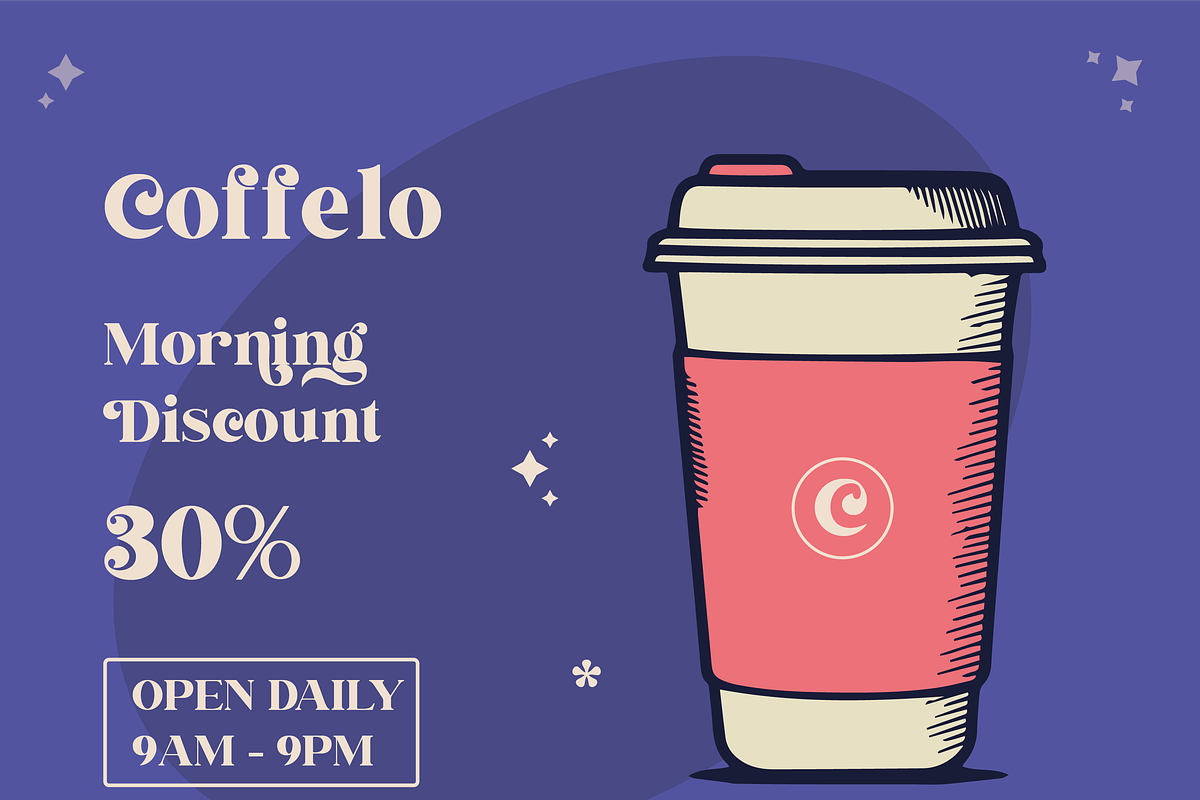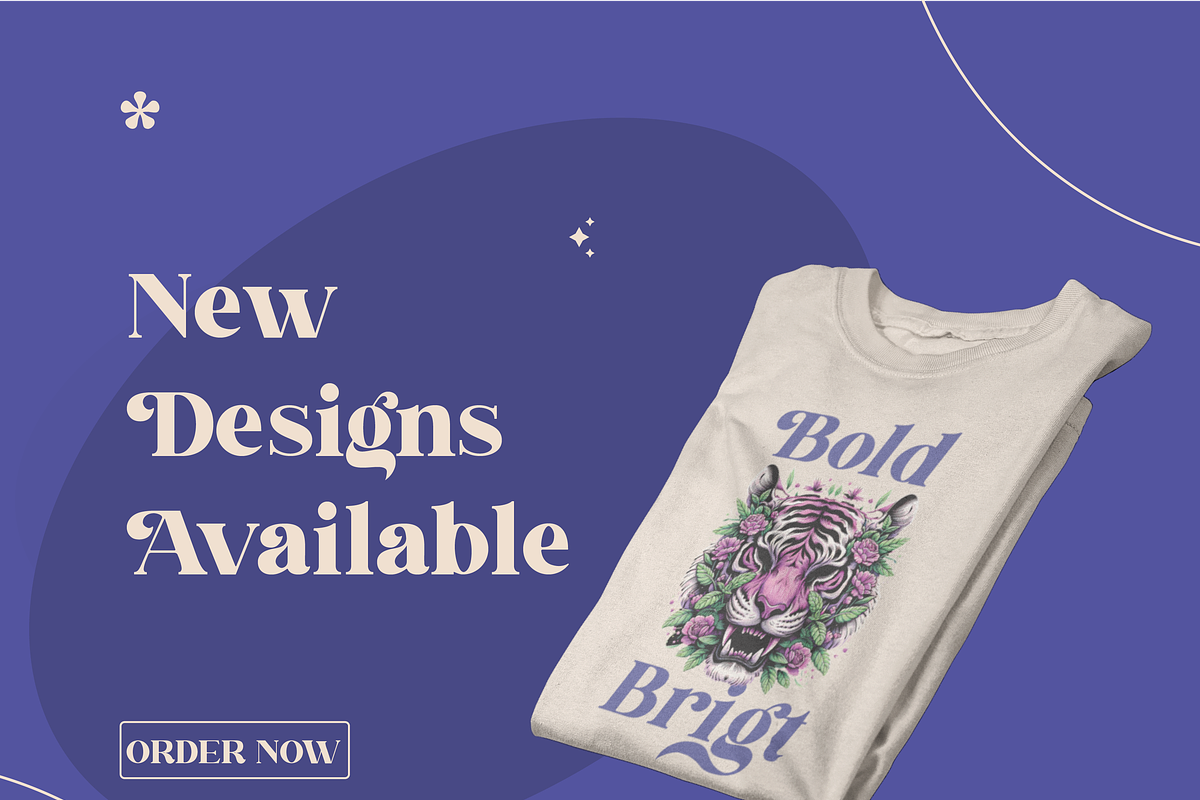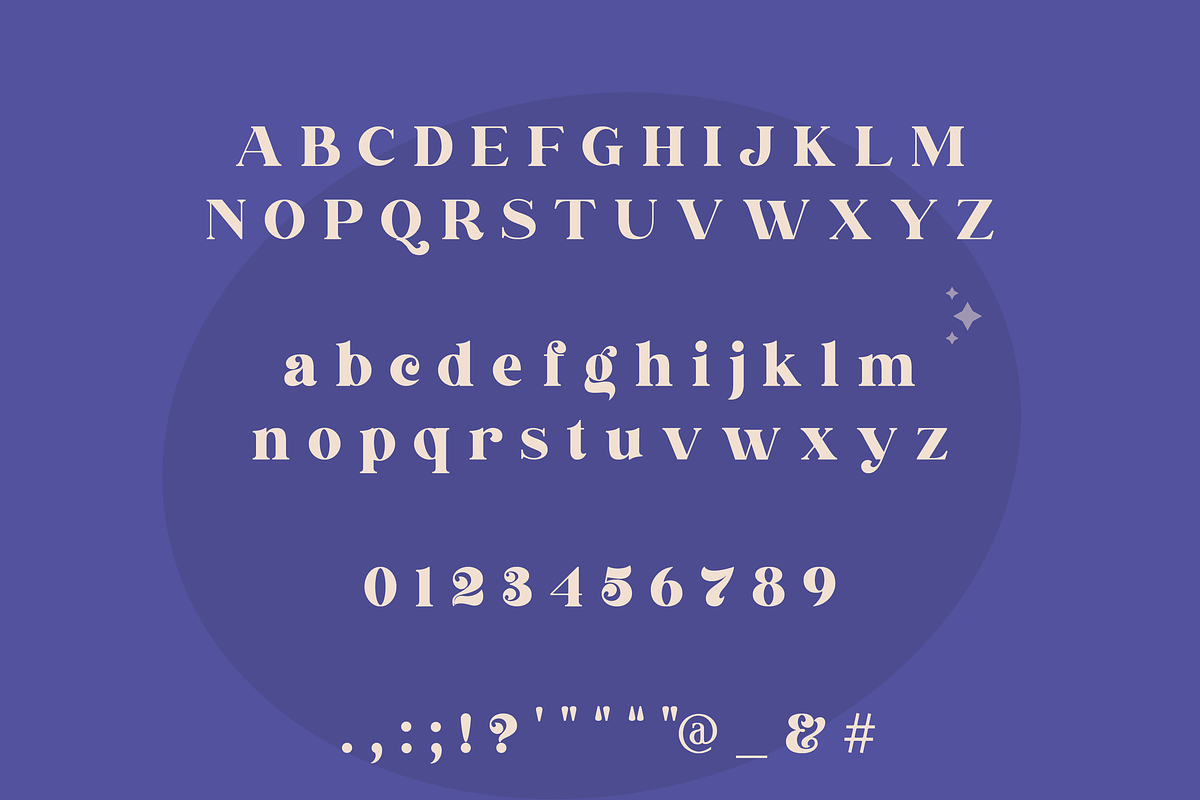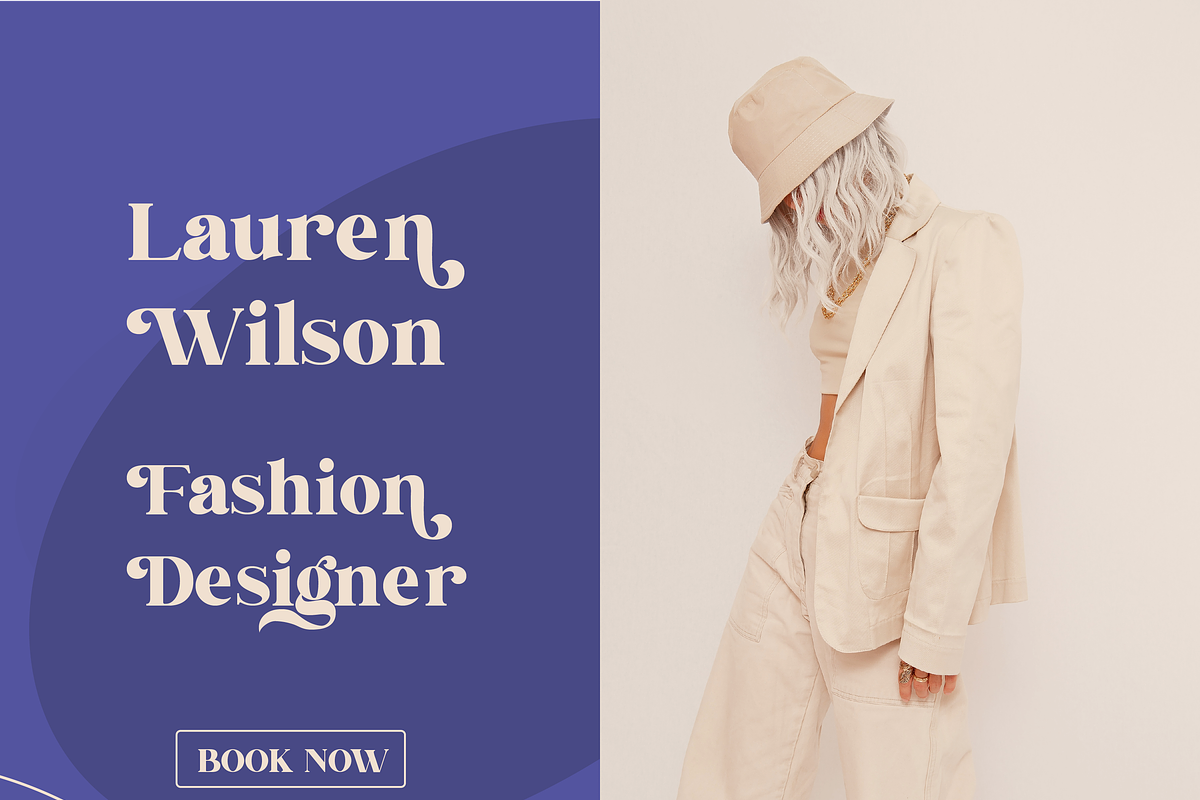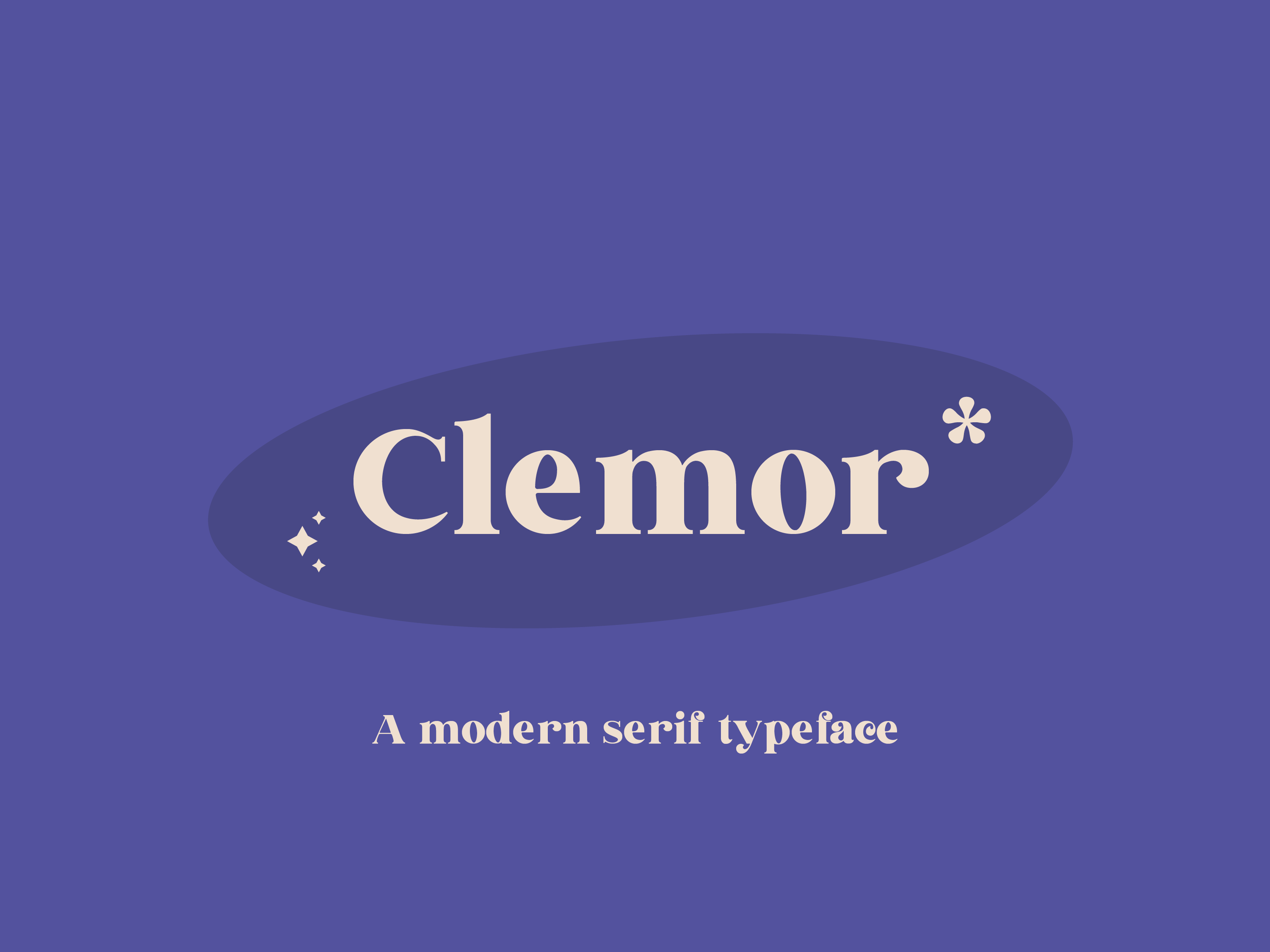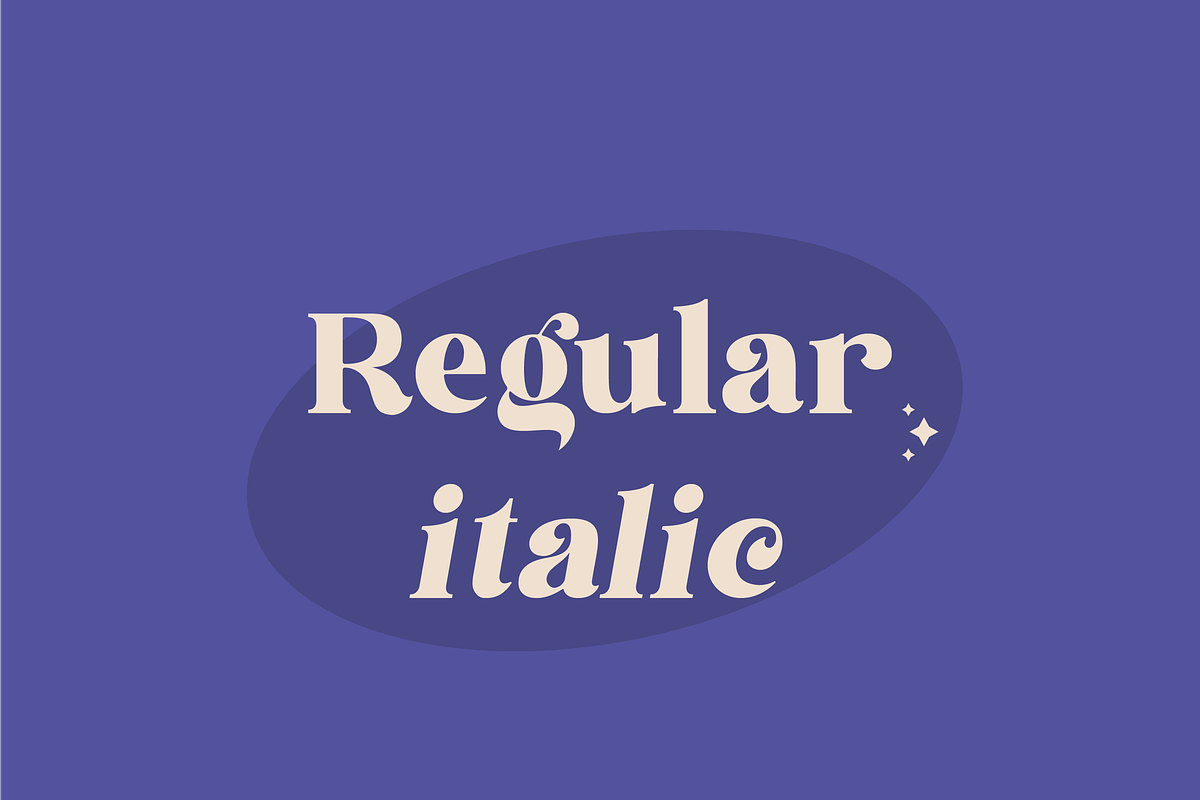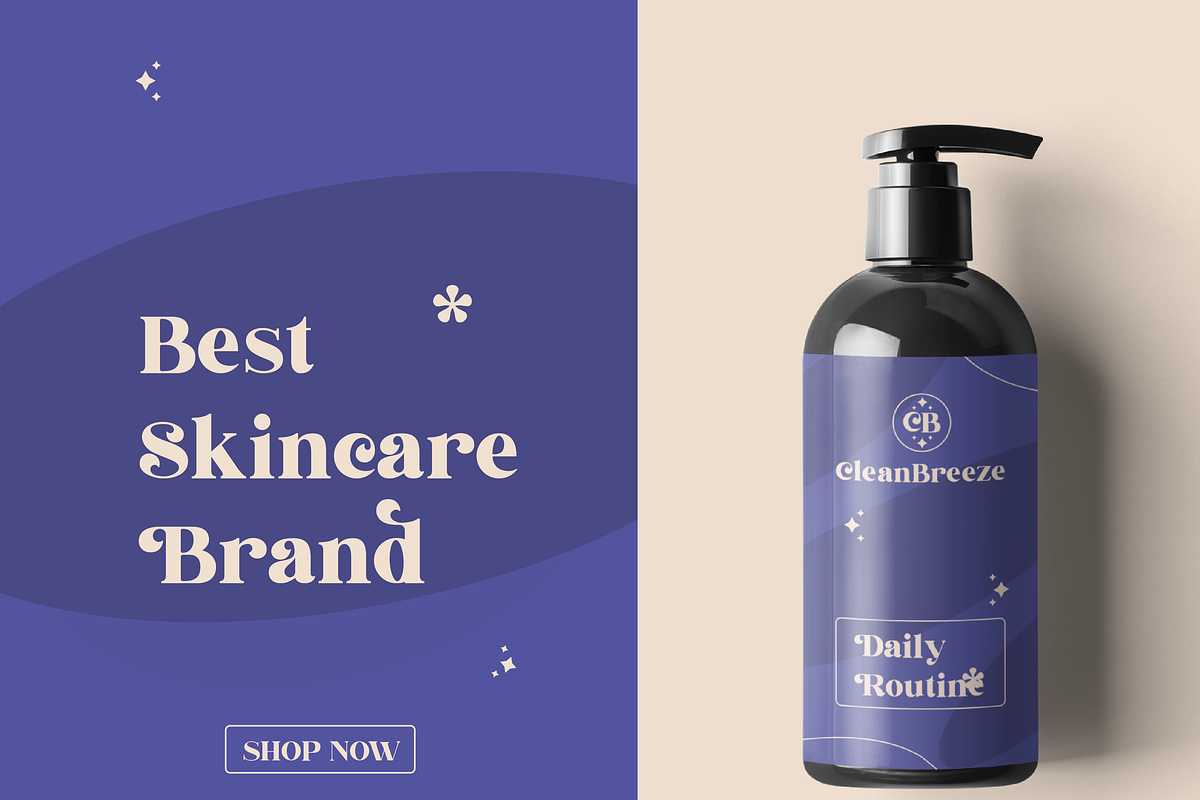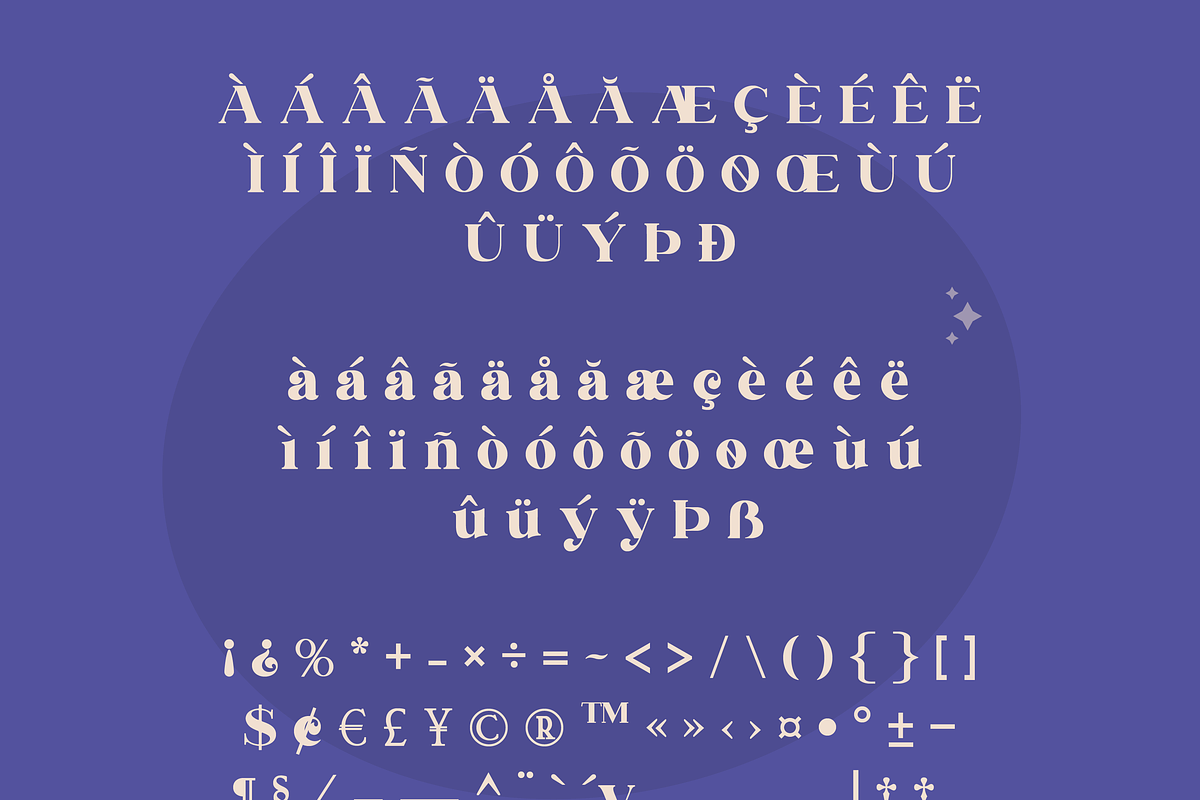
Clemor Font - Serif Font
Clemor is a striking modern serif font that blends boldness with intricate detailing, making it an exceptional choice for projects requiring a strong, sophisticated aesthetic. Its design showcases sharp serifs and refined curves, creating a powerful visual impact while maintaining a touch of elegance. This font is PUA encoded, which means you can easily access its full set of stunning glyphs and ligatures, offering endless possibilities for creative expression.